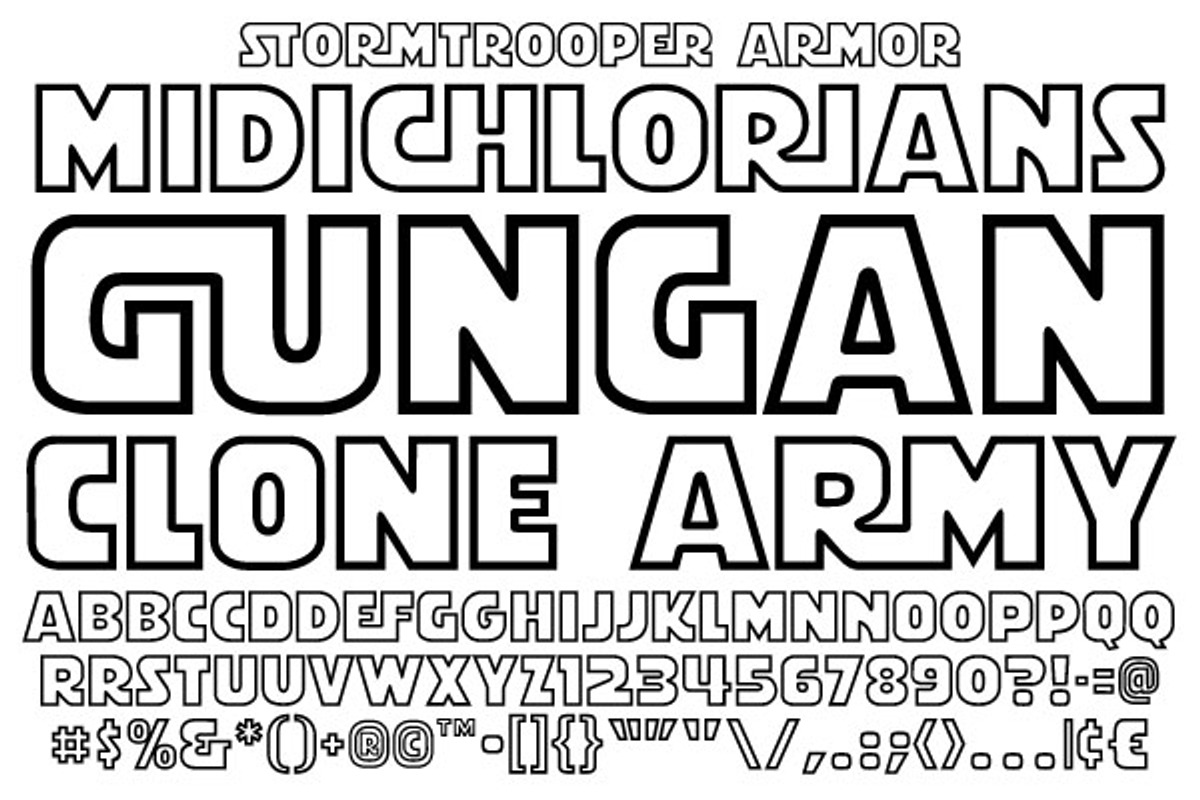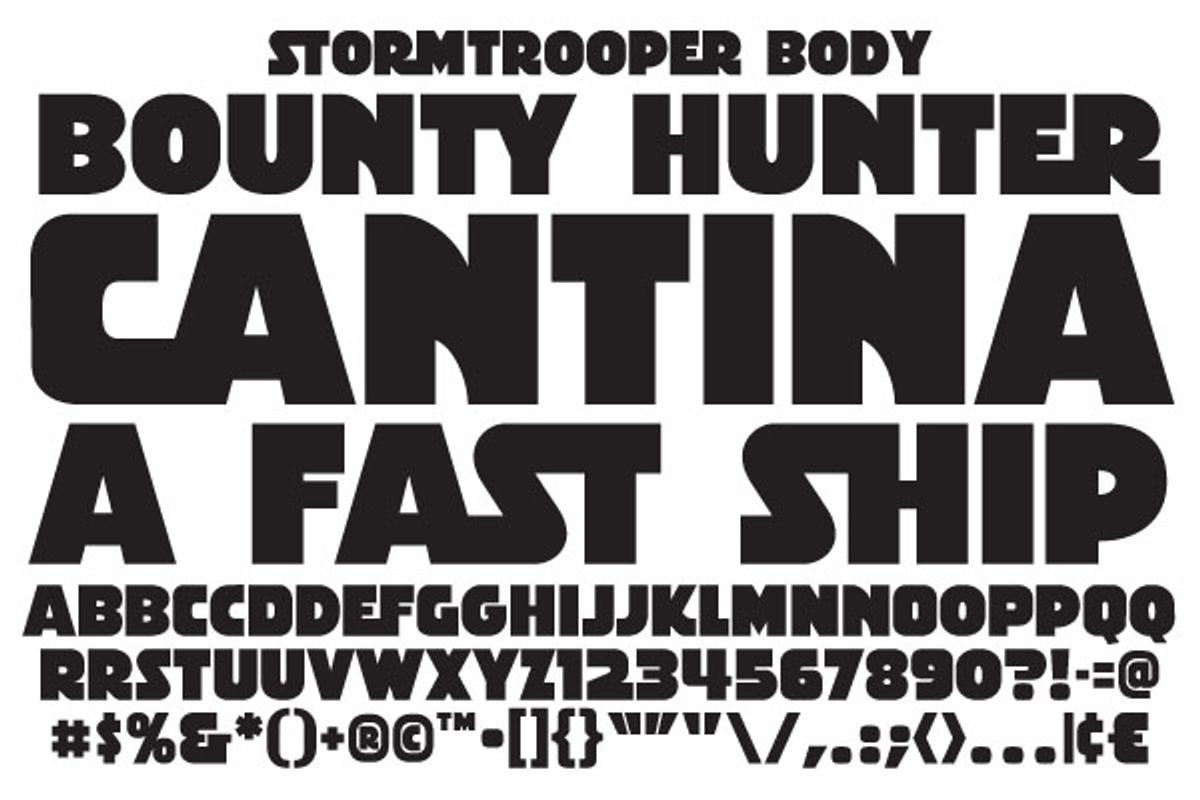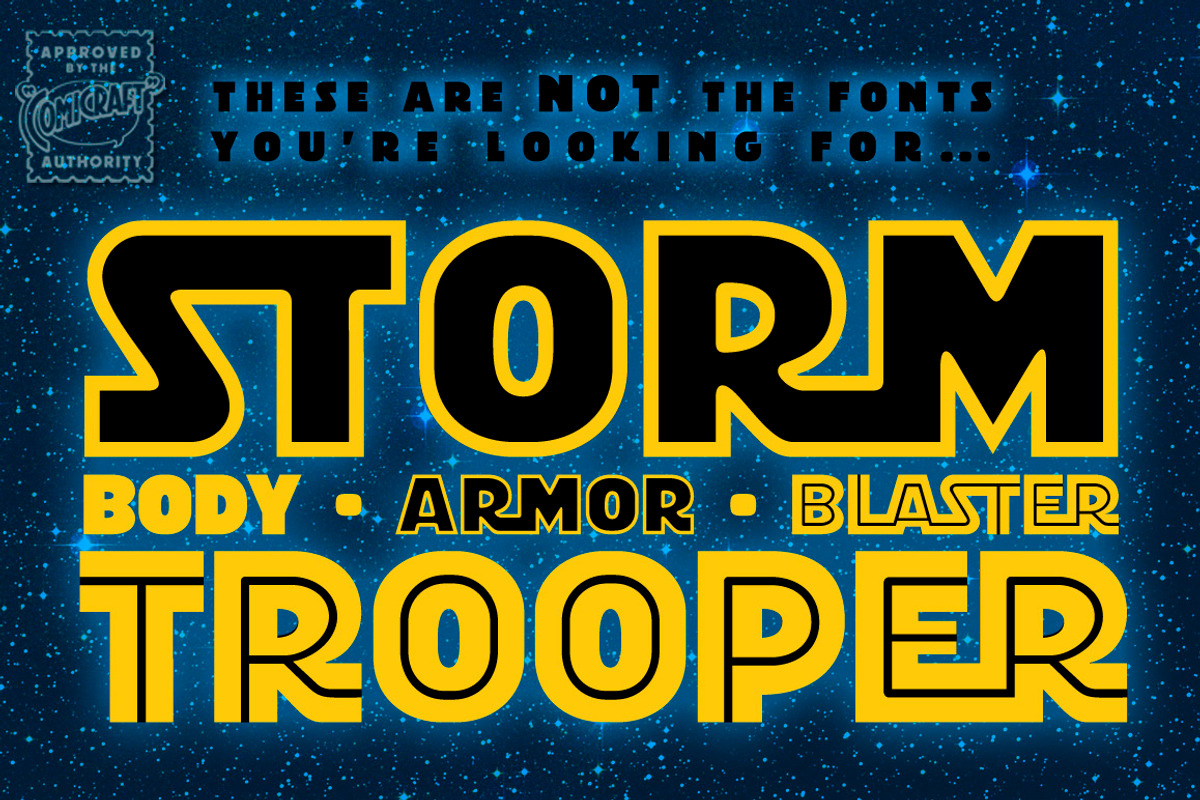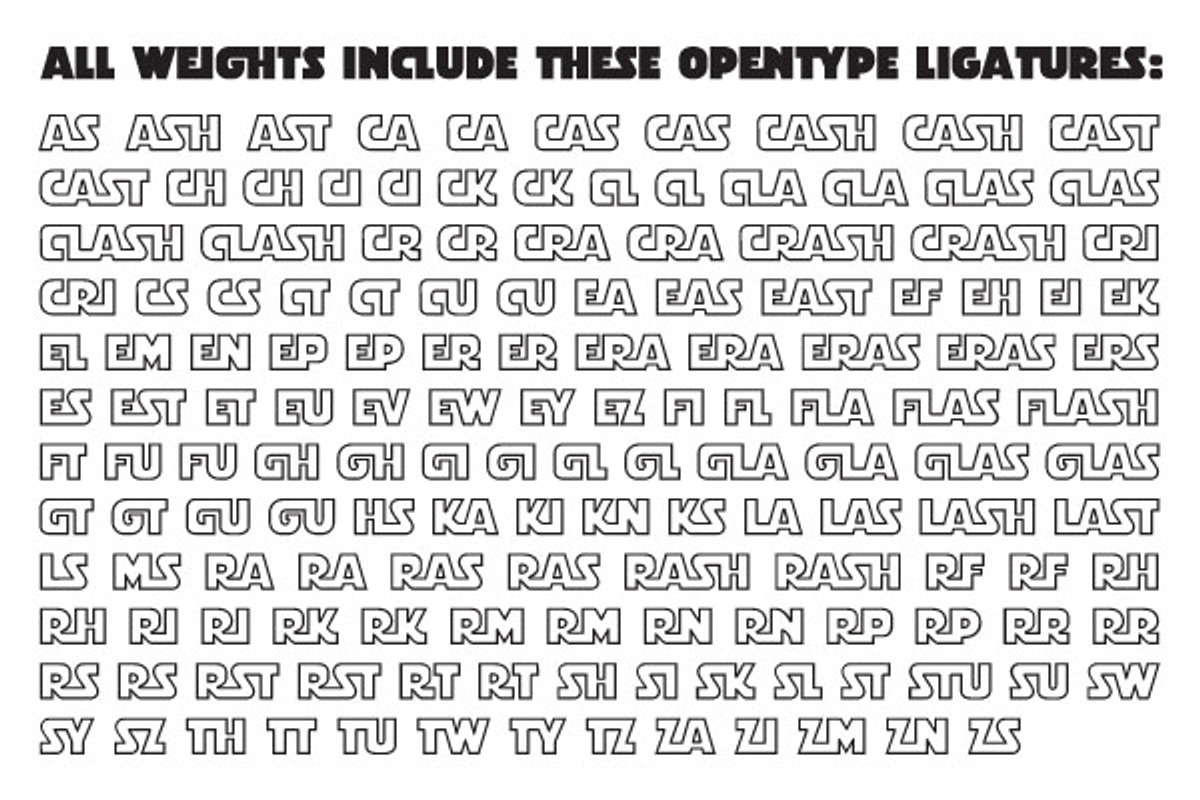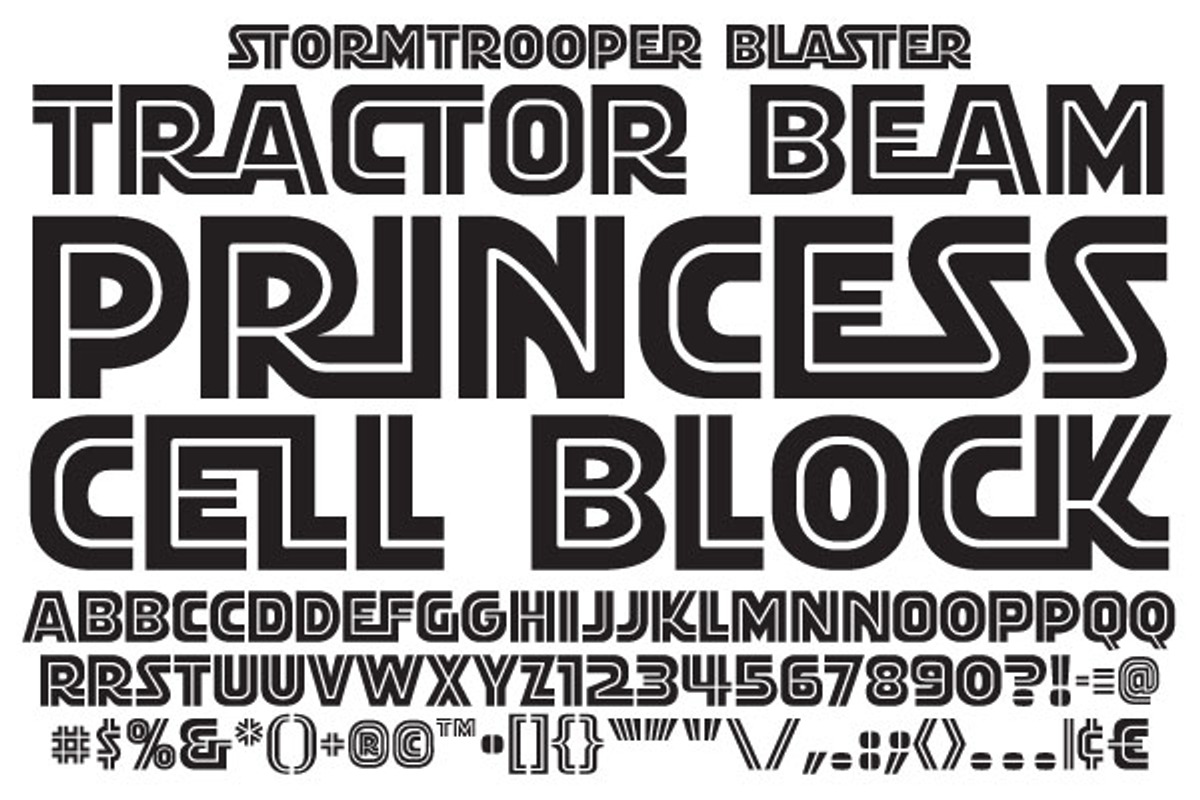
Stormtrooper - interlocking sci-fi
Our clone army of Stormtrooper letters is ready to be unleashed upon the universe... although their journey to the darkside is not yet complete, we still suggest that if you'd like to avoid any Imperial entanglements, this is NOT the font you are looking for... You can go about your business... Move along...